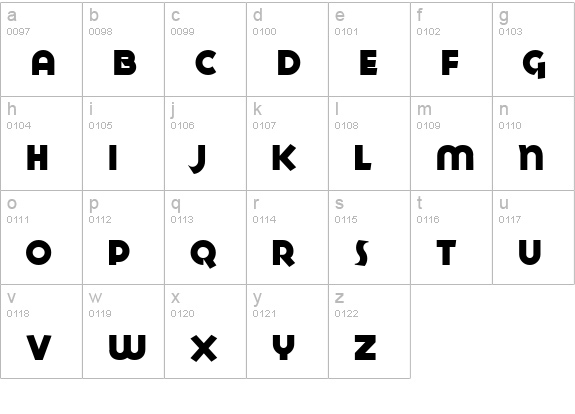
GoyaHeavy Font Details
GoyaHeavy font is a bold and striking typeface that exudes strength and confidence. With its thick, heavy strokes and commanding presence, this font is perfect for making a bold statement in your designs. Whether you're creating eye-catching headlines or designing powerful logos, GoyaHeavy is sure to grab attention and leave a lasting impression. The best part? GoyaHeavy is available for free download at FontsMarket.com. This means you can easily add this powerful font to your collection without any cost. Don't miss out on the opportunity to enhance your designs with the impactful GoyaHeavy font - download it today and take your projects to the next level!